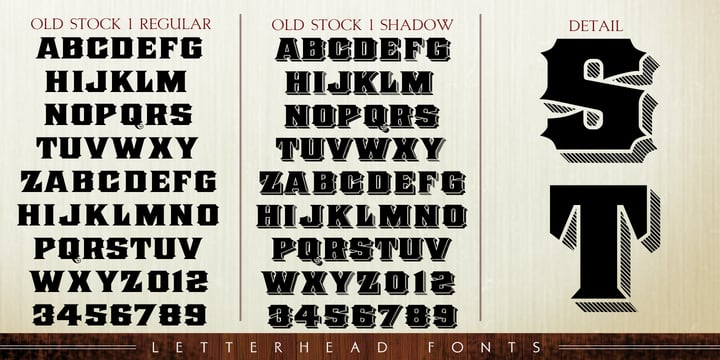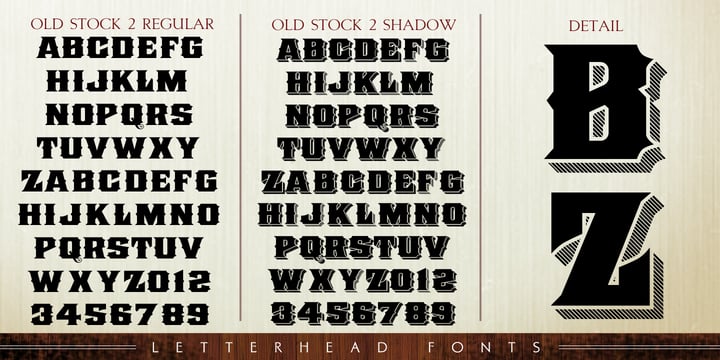
LHF Old Stock 1 Regular
LHF Old Stock 2 Regular
LHF Old Stock 2 Shadow
LHF Old Stock 1 Shadow
About LHF Old Stock Font Family
Chuck was inspired to create LHF Old Stock after seeing lettering on old stock certificates. This commanding font has nice thick strokes so you can apply bevels and other creative decoration. With this set you receive all 4 fonts: 1 Regular & 1 Shadow (without spikes) and 2 Regular & 2 Shadow (with spikes). Shadows are comprised of angled lines designed to mimic the engraved look of the period.
Designers: Chuck Davis
Publisher: Letterhead Fonts
Foundry: Letterhead Fonts
Design Owner: Letterhead Fonts